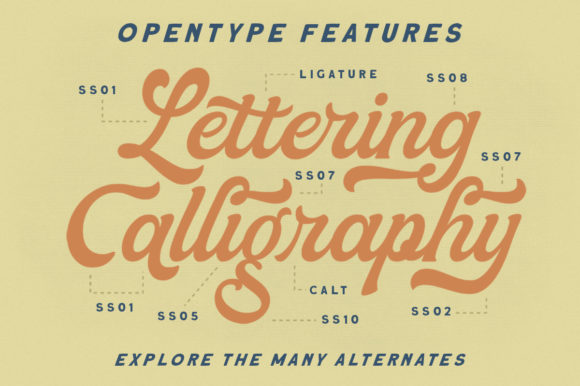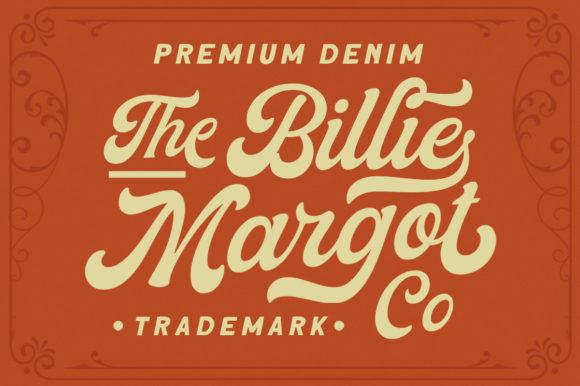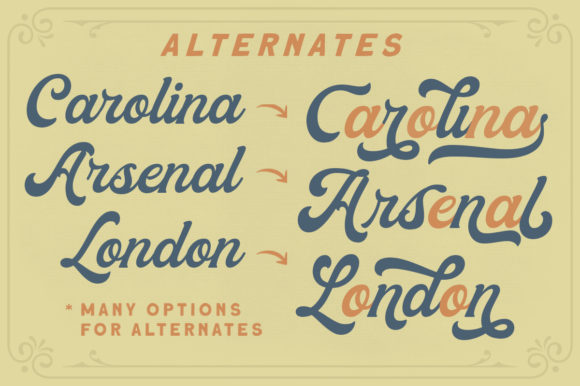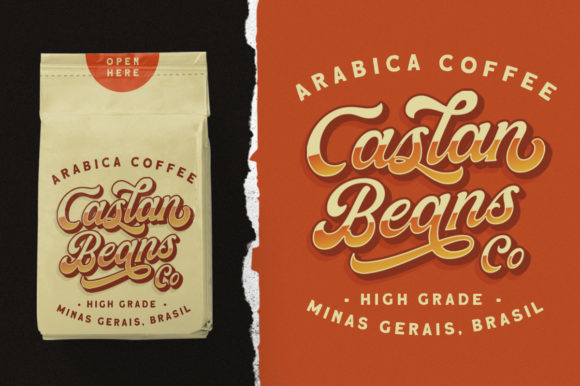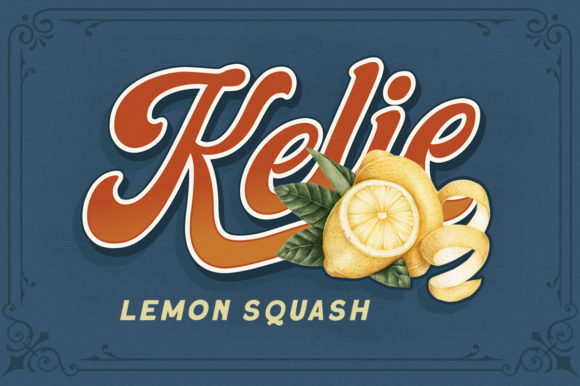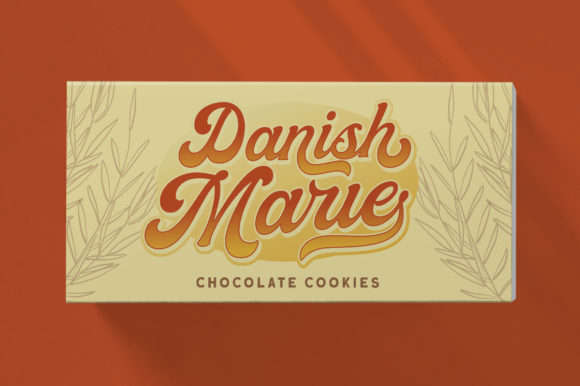
Moraline Font
About Moraline Font
Moraline is a retro styled and bold handwritten font, crafted to give your headlines and logotype projects a stylish touch. This font reads as strong, confident, and dynamic and can add tons of nostalgic character to your designs.